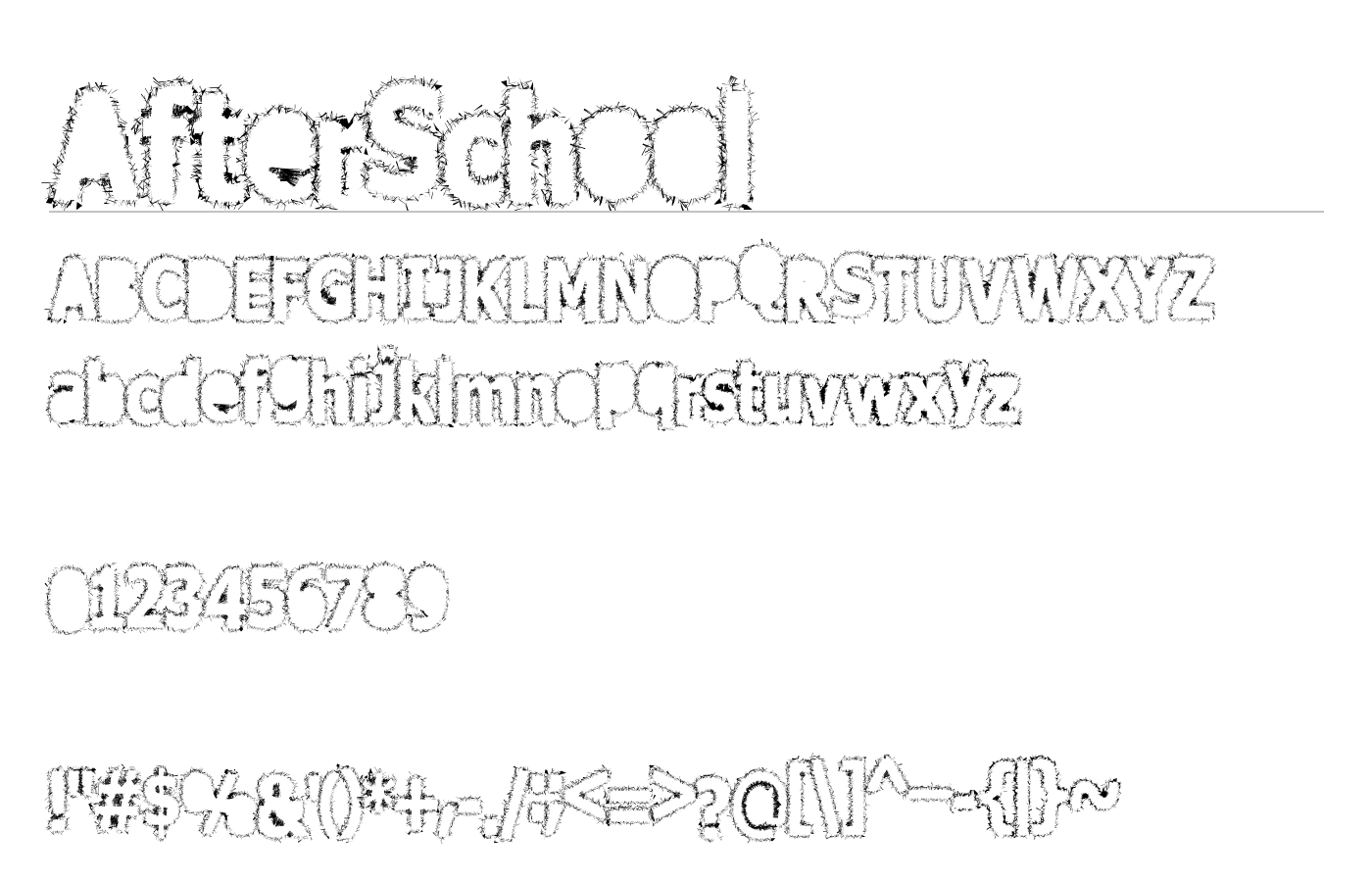
AfterSchool is a playful sans serif font characterized by its jagged, sketch-like edges that give it an informal, hand-drawn feel. With a balanced weight and moderate x-height, it conveys a sense of youthful energy and creativity, making it perfect for fun, casual designs such as school projects, children’s books, or playful branding. Its unique texture adds personality and a distinctive touch that stands out in headlines and logos where an approachable and dynamic tone is desired.
AfterSchool Font